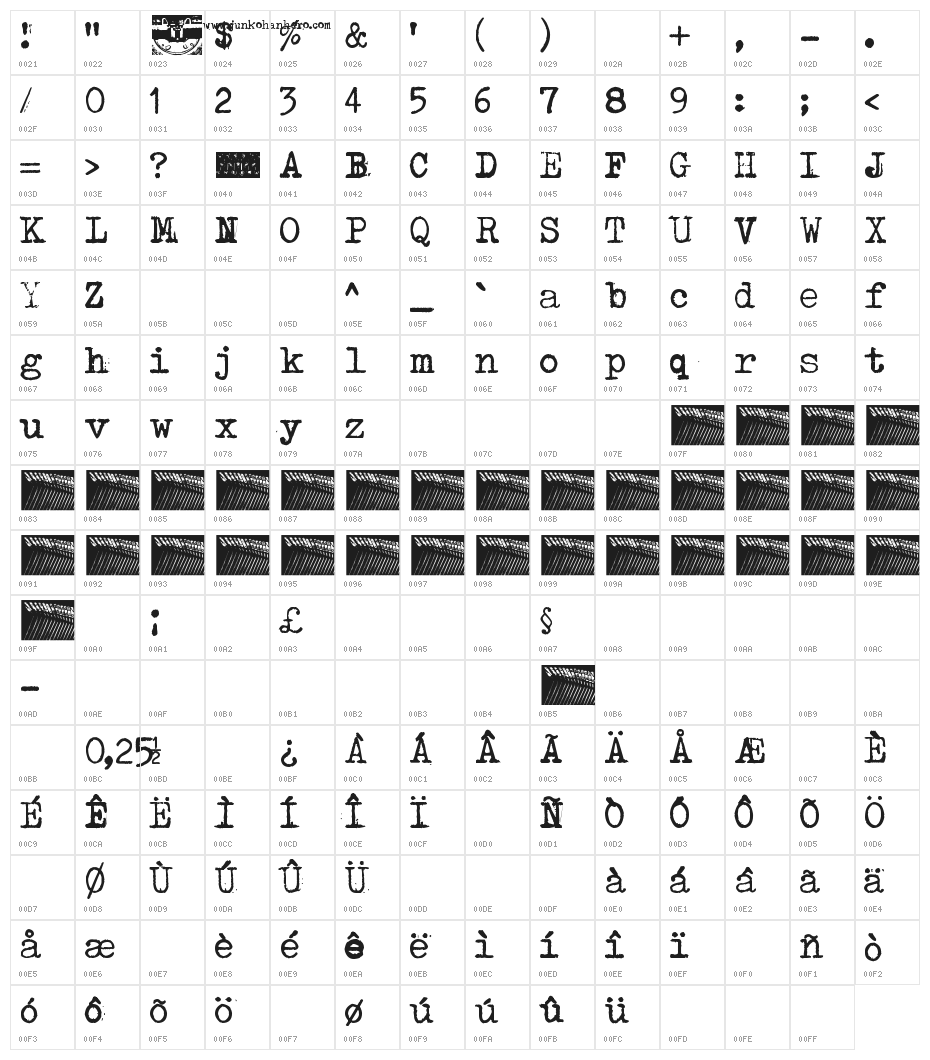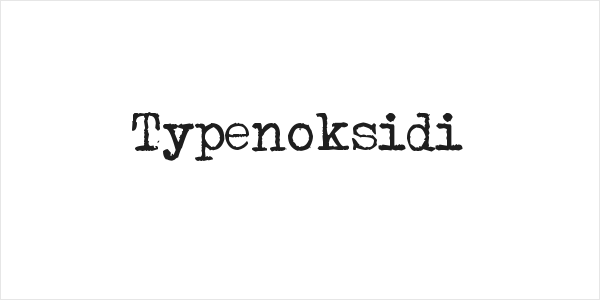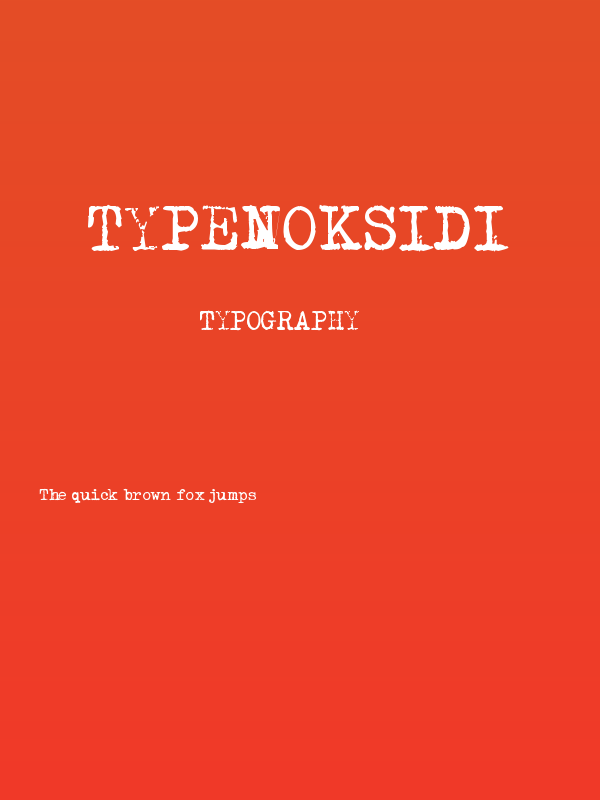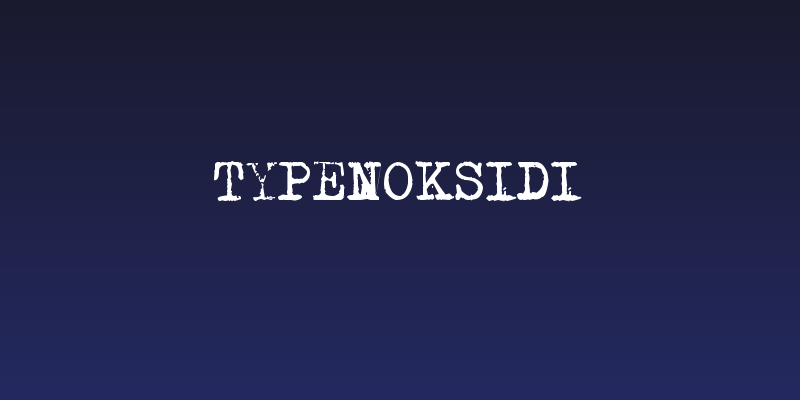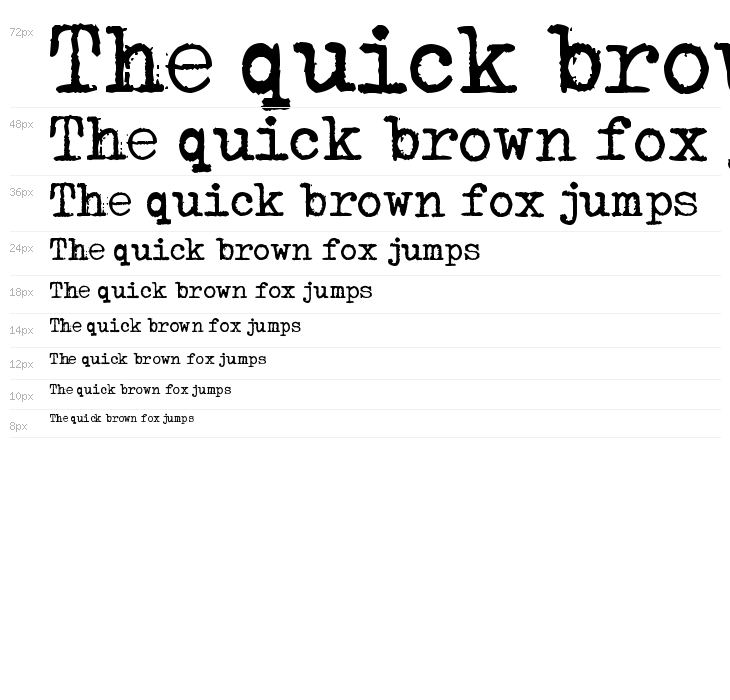
Typenoksidi Font
Typenoksidi Description
This font features a rugged, distressed appearance reminiscent of typewriter text with a vintage, grunge aesthetic. The characters are bold and uneven, with rough edges and varying stroke thicknesses that give it a hand-crafted feel. The uppercase and lowercase letters maintain a consistent style, while the numerals and special characters complement the overall design. This font's unique texture and character make it stand out, ideal for projects that require a touch of nostalgia or a raw, authentic look.
| Proposed Projects | Ideal for vintage-themed posters, album covers, branding for rustic products, or any design needing a retro, authentic feel. |